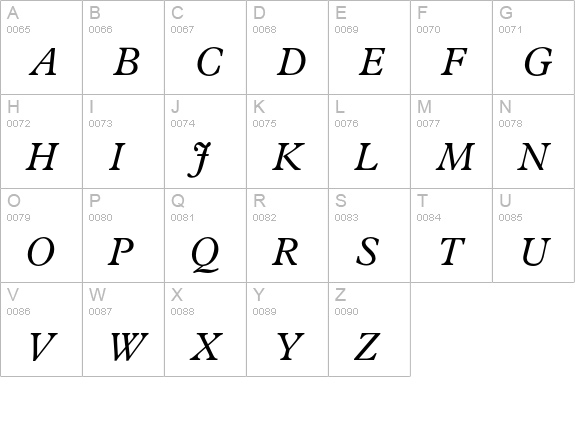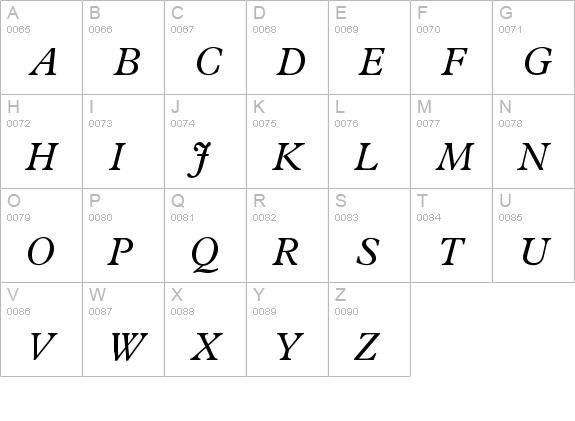
News Plantin Italic is a distinctive, italic variant in the News typeface family \xE2\x80\x94 well suited to design and typography projects.
News Plantin Italic is a sleek and sophisticated font that adds a touch of elegance to any design project. Its crisp lines and graceful curves make it perfect for conveying a sense of professionalism and refinement. The italicized version of News Plantin adds a dynamic and modern twist to the classic serif font, making it ideal for use in headings, titles, and other prominent text elements. What's even better is that News Plantin Italic is available for free download at FontsMarket.com. This means that you can easily add this stylish and versatile font to your collection without any cost. Whether you're working on a print project, a website design, or any other creative endeavor, News Plantin Italic is sure to elevate your work and make it stand out. Download it today and start incorporating this beautiful font into your designs!